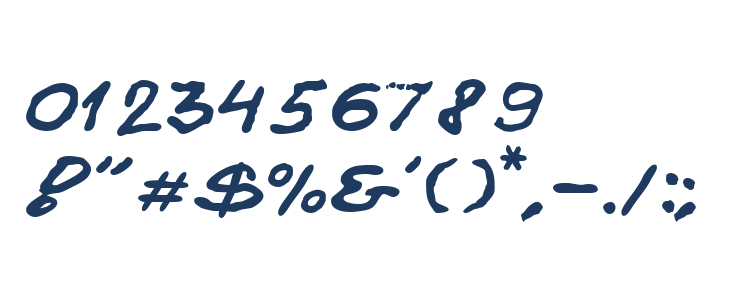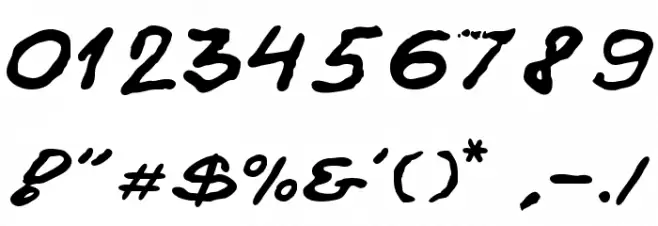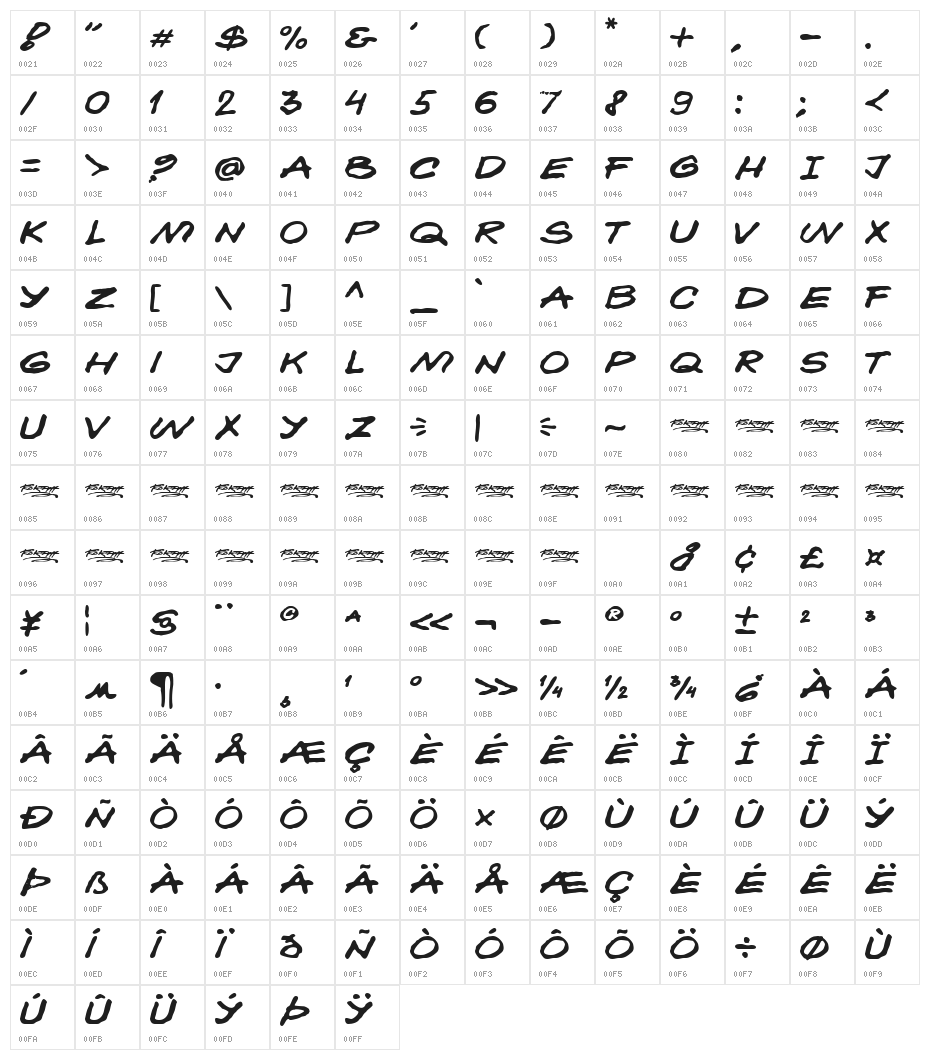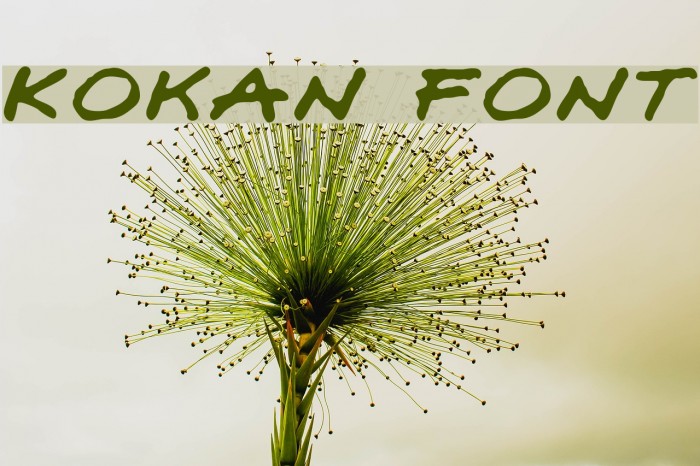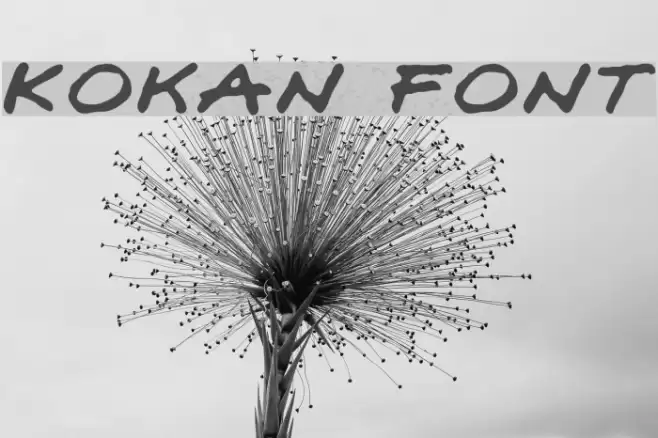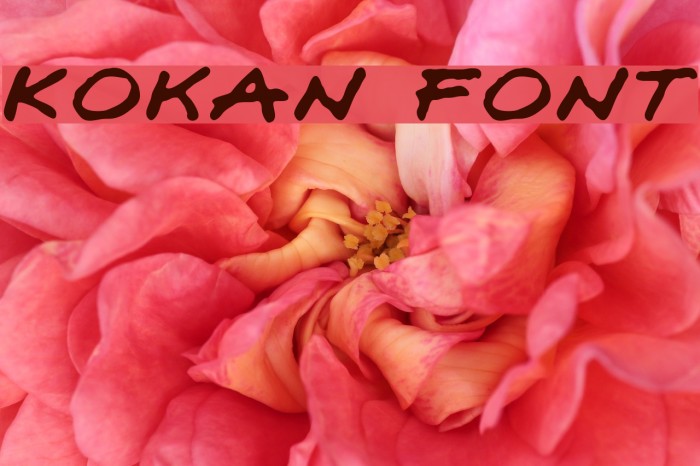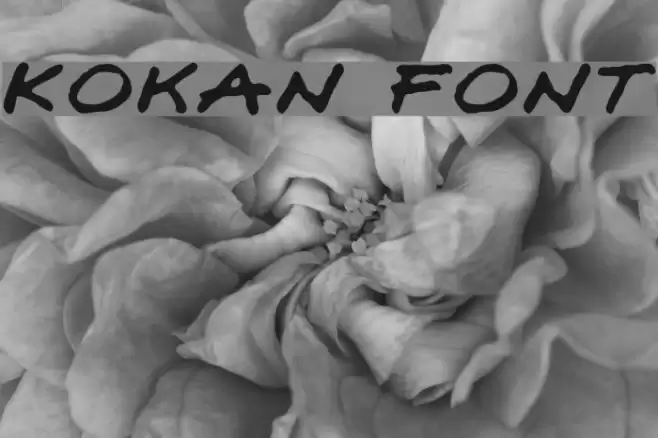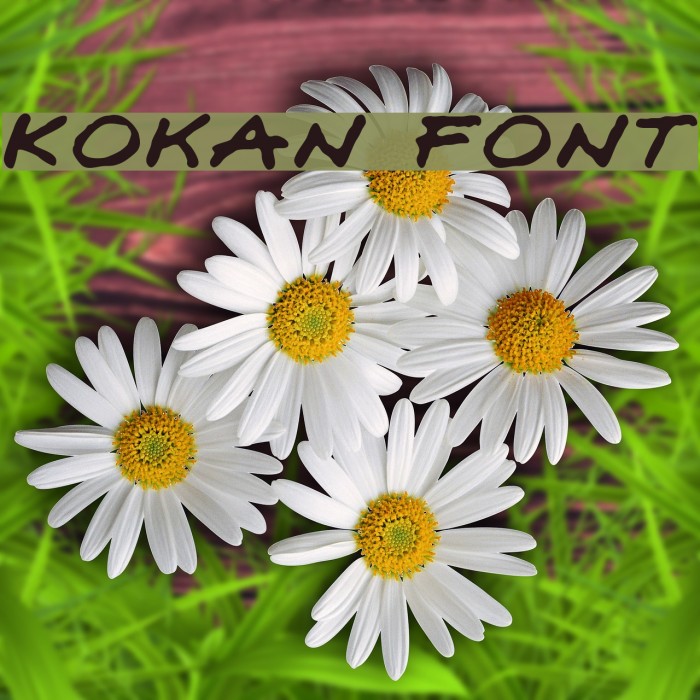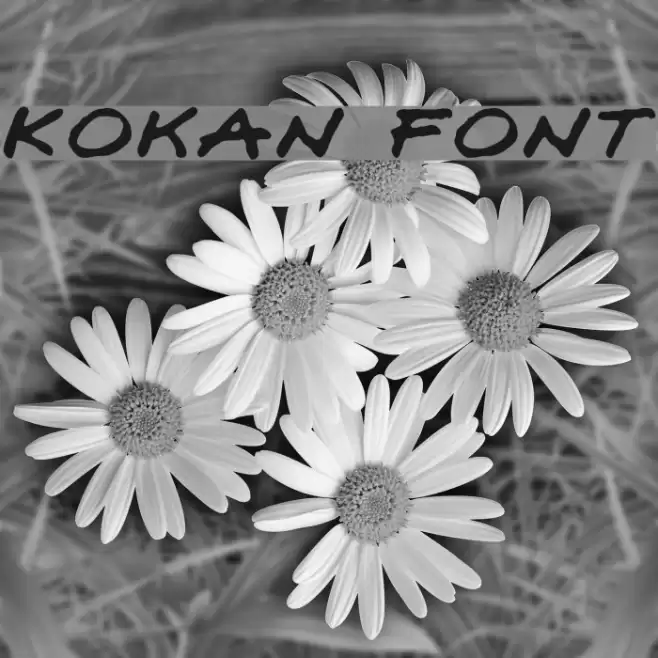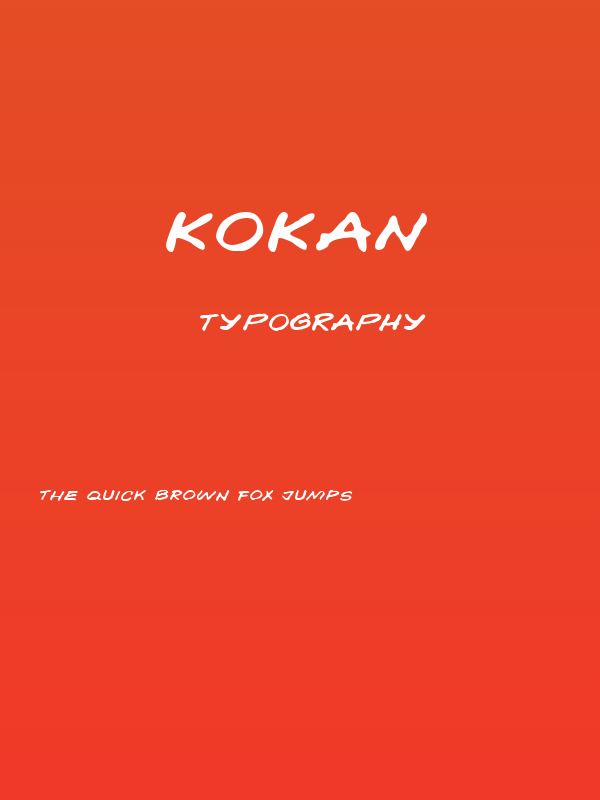
Kokan Font
Kokan Description
This font exhibits a bold, handwritten style with a dynamic and energetic appearance. The characters are slightly slanted, giving a sense of motion and fluidity. The strokes are thick and consistent, providing a strong visual impact. The uppercase and lowercase letters maintain a cohesive look, with rounded edges and a casual flair. The numerals and special characters are designed to match the overall aesthetic, ensuring uniformity across all elements. This font is ideal for projects that require a personal touch or a creative, informal vibe.
Overall StyleCasual, Creative
Proposed ProjectsIdeal for greeting cards, personal branding, creative posters, and social media graphics.